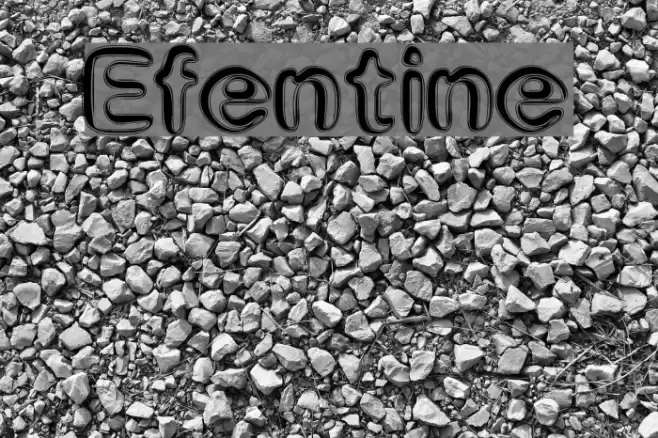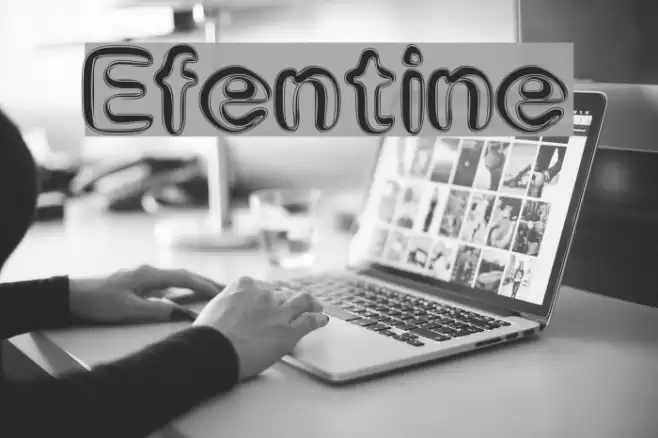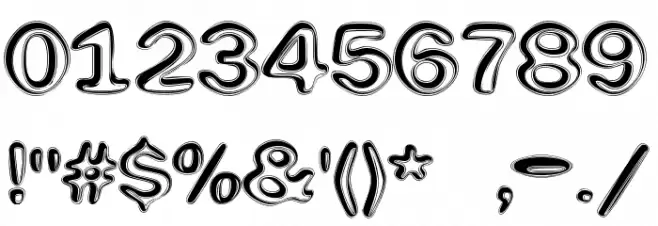
Efentine Font
Efentine Description
This font features a bold, playful design with a three-dimensional effect created by its thick, outlined strokes. Each character is filled with a solid color and surrounded by a contrasting outline, giving it a bubble-like appearance. The letters are rounded and smooth, contributing to a friendly and approachable aesthetic. The font maintains consistent thickness throughout, ensuring readability while adding a touch of whimsy. Its unique style makes it stand out, perfect for projects that require a fun and engaging visual element.
A bold, playful font with a three-dimensional, bubble-like appearance from Futuristic fonts.
- Proposed Projects: Ideal for children's books, playful branding, party invitations, and creative posters.
- Overall Style: Playful, Modern